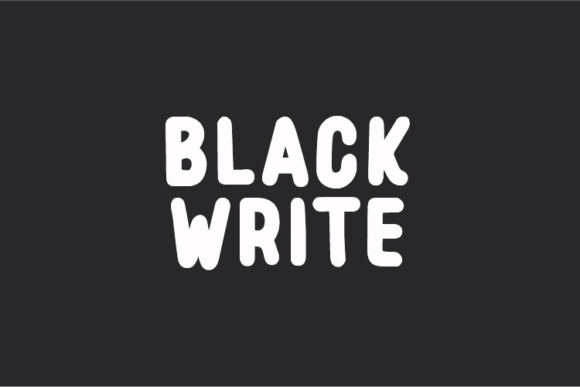
Discover the Unique Charm of Black Write Font: Elevate Your Designs with a Natural Handwritten Style
In the world of typography, fonts play a crucial role in conveying messages, expressing emotions, and creating visual identities. For designers and crafters, finding the perfect font can make all the difference in transforming a design from ordinary to extraordinary. This is where Black Write Font comes into play – a natural handwritten font that has been gaining attention for its unique and captivating style.
The Distinctiveness of Black Write Font
What sets Black Write Font apart is its natural handwritten approach, where not a single node in each character’s indentation has been altered. This means that every letter, every curve, and every stroke is authentic and unedited, giving the font an organic feel that resonates with audiences. The result is a typeface that exudes warmth, personality, and a sense of human touch.
Black Write Font’s versatility makes it an excellent choice for a wide range of design applications. Whether you’re working on:
- Quotes and Inspirational Messages: Add a personal touch to your motivational quotes, making them more relatable and engaging.
- Notes and Journals: Create visually appealing notes, journal covers, or planner pages that stand out.
- T-Shirts and Apparel: Design eye-catching tees, hoodies, or tote bags with a font that speaks to a younger audience.
- Product Design: Incorporate Black Write Font into your product designs, such as packaging, labels, or branding materials, to give them a distinctive look.
Why Designers and Crafters Love Black Write Font
Designers and crafters appreciate fonts that offer a unique blend of style, readability, and emotional connection. Black Write Font checks all these boxes and more:
- Ease of Use: Its clear and legible design ensures that your message is conveyed effectively, making it perfect for both digital and print materials.
- Emotional Connection: The handwritten nature of Black Write Font creates an instant emotional connection with the reader, making your designs more impactful.
- Customization: Feel free to experiment with different colors, sizes, and styles to match your brand’s voice and aesthetic.
Tips for Using Black Write Font Effectively
To make the most of Black Write Font, consider the following tips:
- Pair with Other Fonts: Combine Black Write Font with complementary fonts to create visual interest and hierarchy in your designs.
- Experiment with Colors: Try different color schemes to find the perfect match for your brand or design theme.
- Use it Sparingly: Balance Black Write Font with simpler fonts to avoid overwhelming the reader and to maintain focus on key messages.
Black Write Font is a game-changer for designers and crafters looking to infuse their projects with a natural, handwritten charm. Its unique character, versatility, and emotional appeal make it an excellent addition to any design toolkit. Whether you’re creating quotes, notes, tees, or product designs, Black Write Font is sure to elevate your work and leave a lasting impression on your audience.